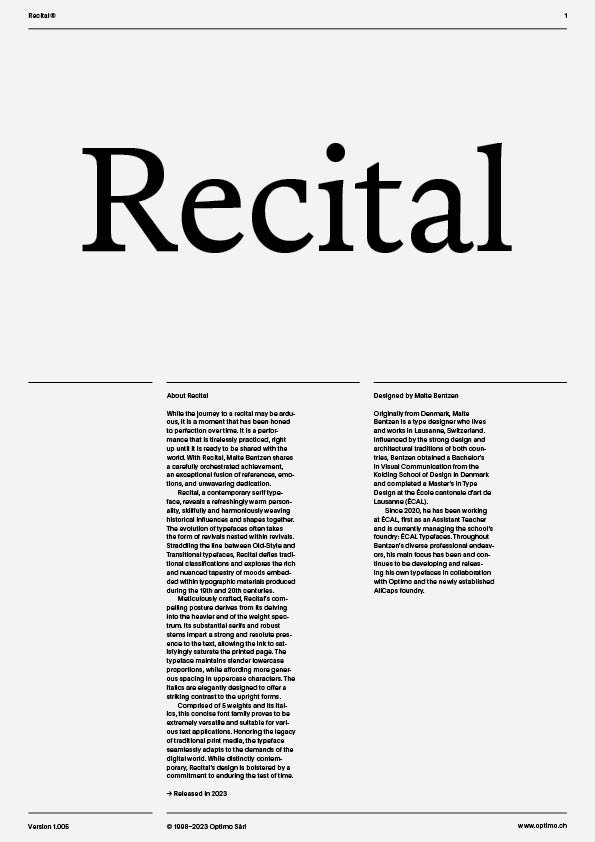
Recital Variable
Case Sensitive Forms
This function formats the text in uppercase and adjusts spacing between all capital letters. It also applies the ‘Case Sensitive Forms’ feature which replaces certain characters with alternates that are better suited for all capital text, especially related to punctuation.
Contextual Alternates
This feature adapts the position of a glyph after its surrounding context. For instance, a dash placed between two uppercase letters or numbers will be replaced by an uppercase version of the dash, slightly higher. This feature is usually active by default in Adobe applications.
Alternate oldstyle zero
Alternate k [italics only]
Alternate v w [italics only]
Alternate ampersand [italics only]
Tabular Lining Figures
Based on the proportions of the capitals, lining figures have an invariable height. With the combination of the tabular spacing format, the width of each numeral is uniformized. This feature is useful when numerals need to all lined up. It facilitates the reading of numbers set within columns or tables. As some applications don’t have access to this feature, proportional figures are set as the default choice.
Proportional Oldstyle Figures
Based on the design of the lowercase, oldstyle figures have varying ascenders and descenders. Like most of the letters, each number has an appropriate width based on its shape. The combination of oldstyle figures with proportional setting generate numerals perfectly adapted for text.
Tabular Oldstyle Figures
Based on the design of the lowercase, oldstyle figures have varying ascenders and descenders. With the combination of the tabular spacing format, the width of each numeral is uniformized. This feature is useful when numerals need to all lined up. It facilitates the reading of numbers set within columns or tables.
Fractions
With this feature, any numbers separated by a slash will automatically turn into a fraction. To fit in fraction configuration, numerals have been designed smaller and their weights have been adjusted to suit the typeface.
Lowercase math symbols
This feature activates alternate lowercase positioning of mathematical symbols.
This feature replaces any letter following a numeral with its matching superior letters. French language uses the ordinal indicators such as ‘er’ for 1er premier, while Spanish, Portuguese and Italian require the feminine and masculine ordinals ‘a,’ ‘o’ for 1º, 1ª. Ordinals are designed to match the weight of the typeface.
Slashed Zero
Originally created to avoid the confusion between the ‘0’ and the ‘O’, this feature substitutes all zeros in a selected text by a slashed form of the zero.
Slashed Zero Oldstyle
Originally created to avoid the confusion between the ‘0’ and the ‘O’, this feature substitutes all zeros in a selected text by a slashed form of the zero.
Tabular figures are all of equal width. They are only needed when the figures must all line up from one line to the next, as in a table. Proportional figures have varying widths, just like most letters; each number has a width appropriate to its design. Lining figures are all the same height, usually similar to that of capital letters. They are needed for use with all-capital settings.
Multiply sign
This feature substitutes the letter “x” into the multiplication sign.
Numerators [numr]
This feature substitutes glyphs with their matching smaller alternates. The numerators are the same glyphs that are used to create fractions, their vertical position remains within the capital letters height. These glyphs are reduced in size and designed slightly heavier to keep them consistent with the rest of the font.
Comprised of five weights and accompanying italics, this concise font family proves to be extremely versatile and suitable for various text applications. Honoring the legacy of traditional print media, the typeface seamlessly adapts to the demands of the digital world. While distinctly contemporary, Recital’s design is bolstered by a commitment to enduring the test of time.